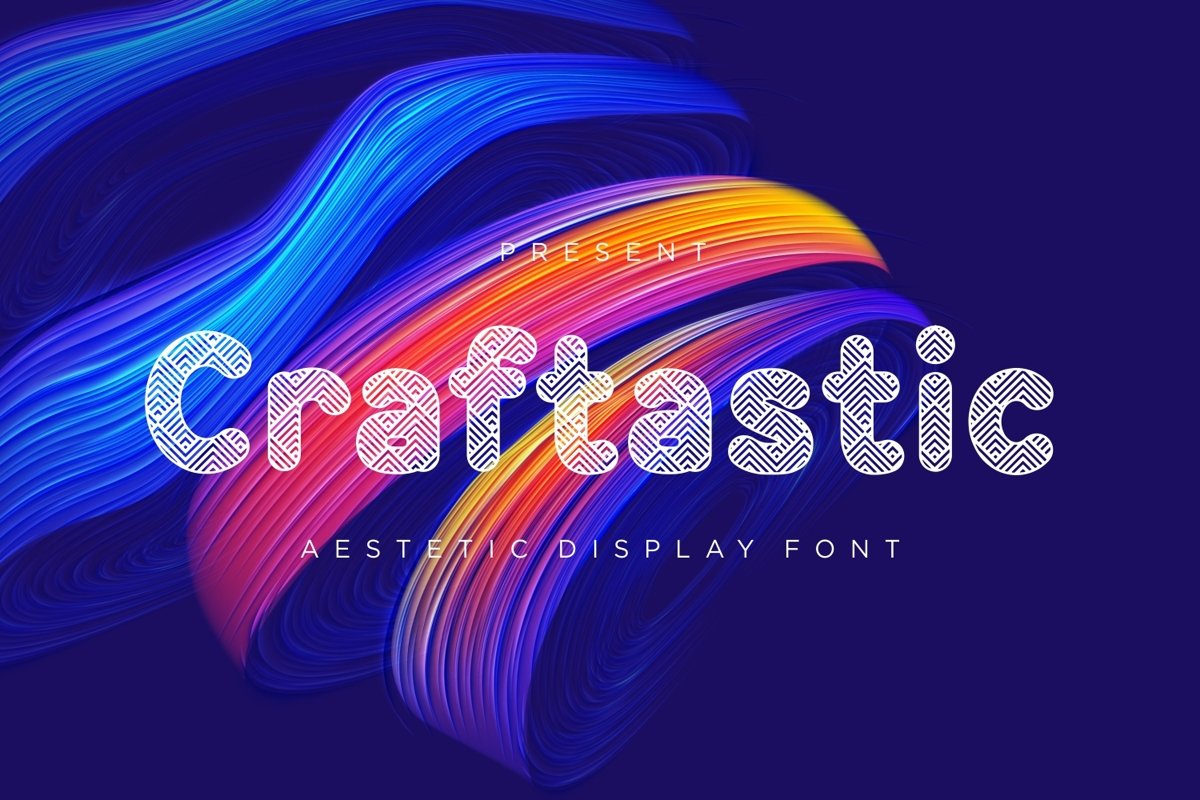
Craftastic is a unique sans serif display come with aesthetic themes. We wanted to create the most decorative characters. The shape of characters have pattern. It matches applies in some designs such as the logotype, brand, packaging, quotes, cute poster, kids shirt, cover book, birthday invitation and more custom design. The features uppercase, lowercase, numeral, punctuation & symbol, multilingual support, PUA encoded (fully accessible without additional design software).
Craftastic